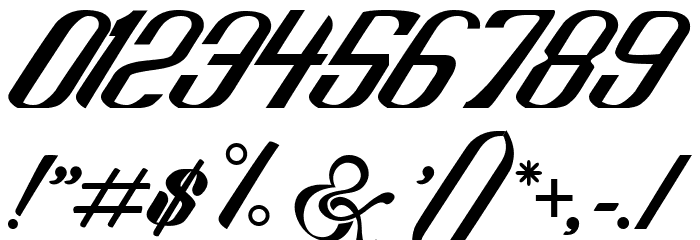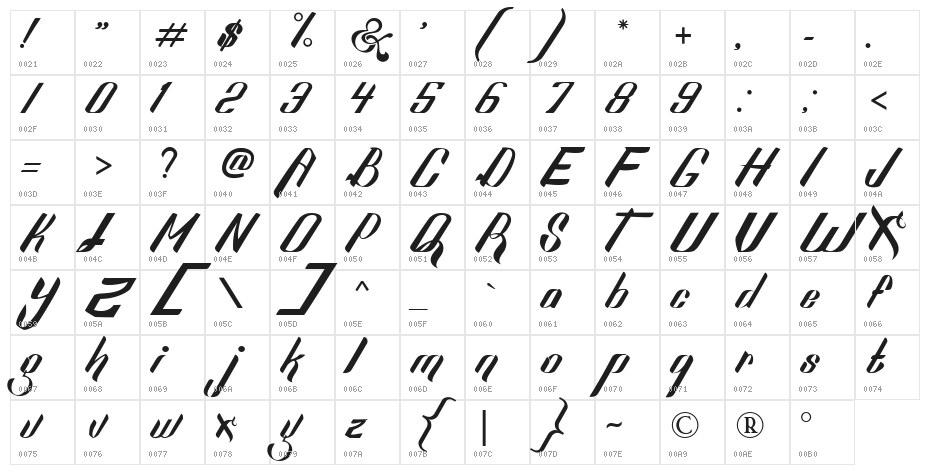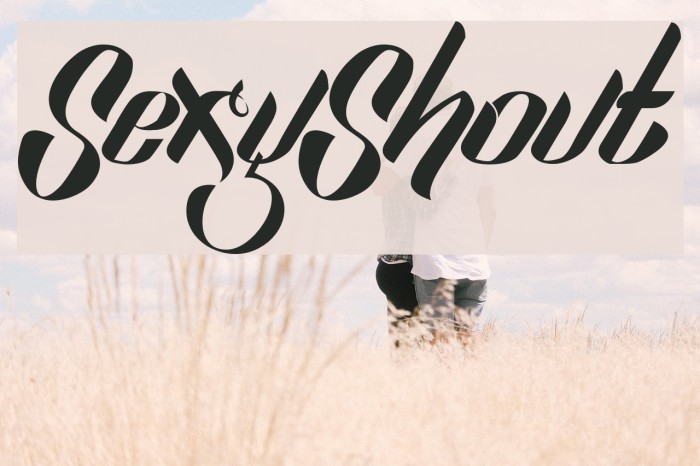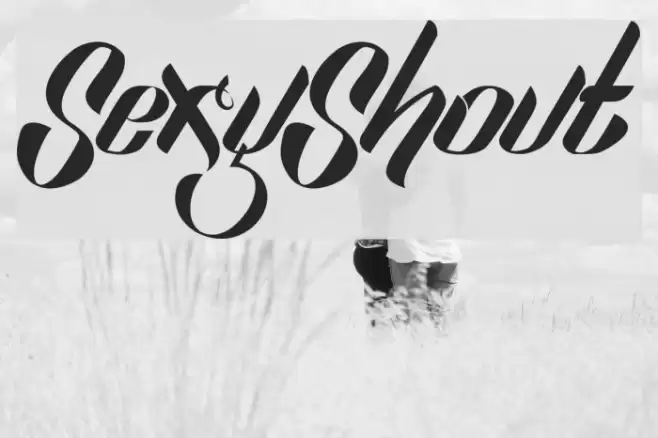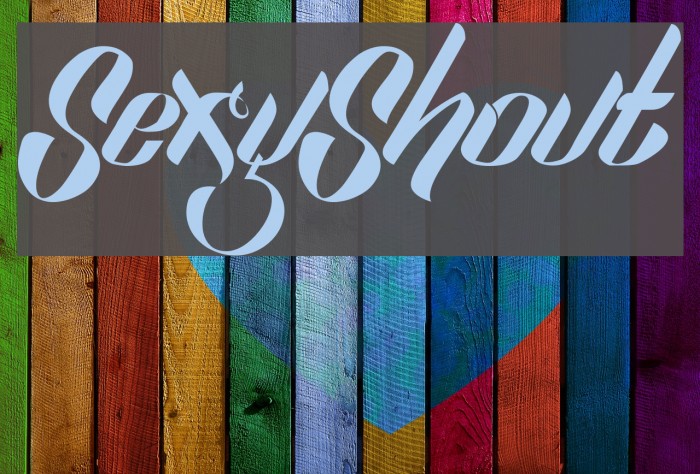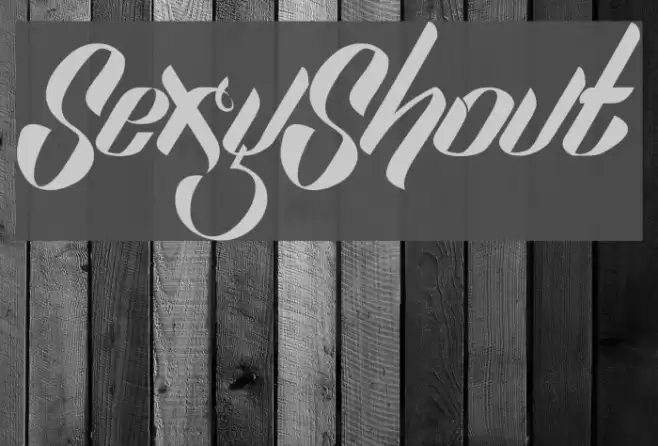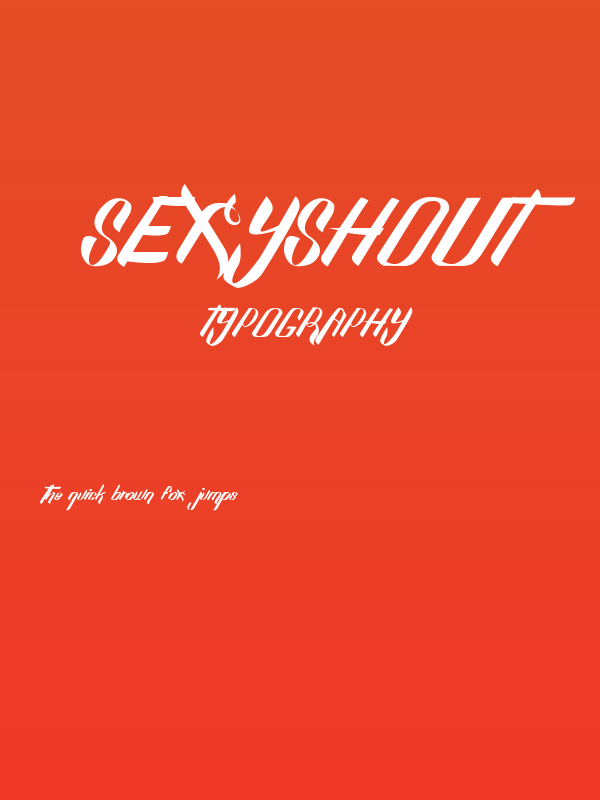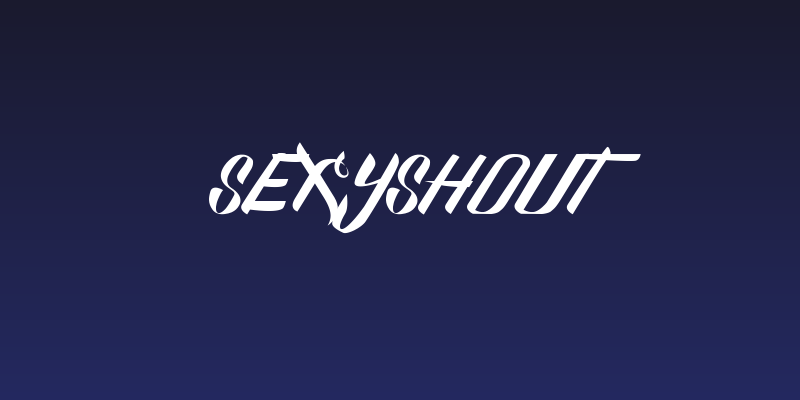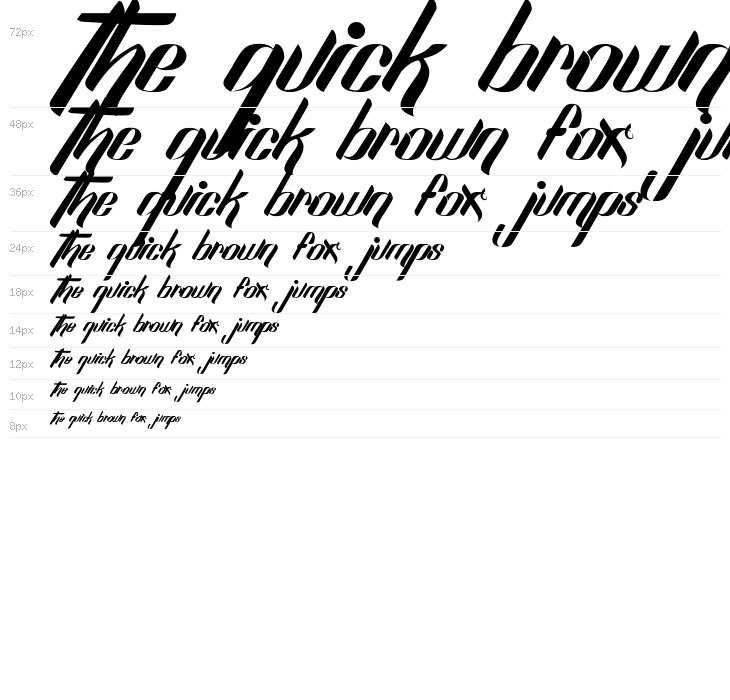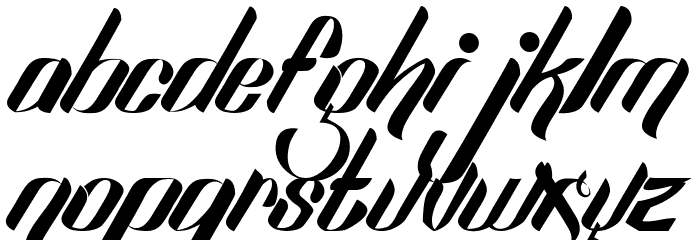
SexyShout Font
SexyShout Description
This font features a bold and dynamic script style with a strong slant, giving it a sense of motion and energy. The characters are connected, creating a fluid and continuous look that is both elegant and assertive. The strokes are thick and consistent, providing a high contrast that enhances readability while maintaining a stylish appearance. The uppercase letters are tall and commanding, while the lowercase letters maintain a cohesive flow. Numbers and special characters are designed to match the overall aesthetic, ensuring uniformity across all text elements.
Use CaseHeadlines, Logos, Branding
Proposed ProjectsIdeal for branding, advertising, and headlines where a bold and stylish impact is desired.